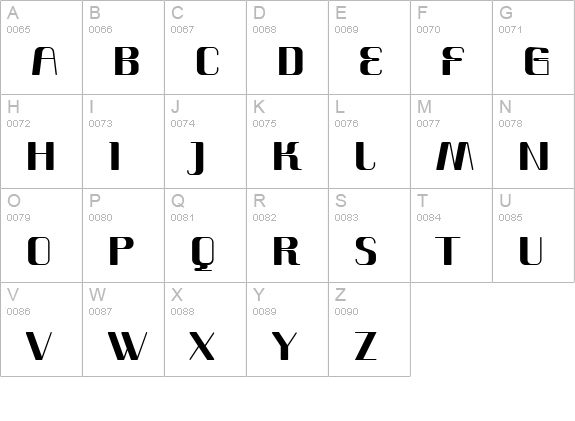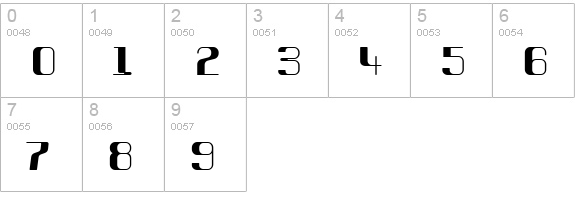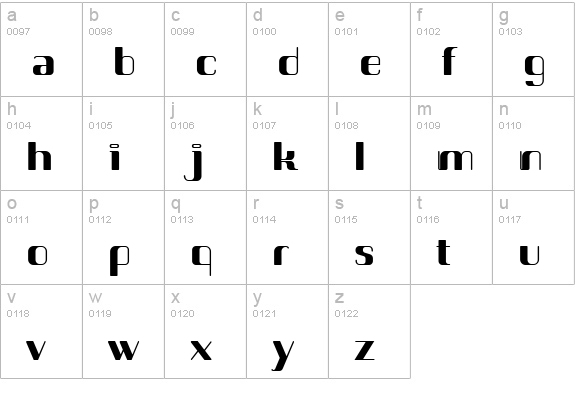
RomeroHeavy Font Details
RomeroHeavy is a bold and impactful display font that commands attention with its strong and confident presence. With its thick and sturdy letterforms, this typeface exudes power and authority while maintaining a touch of elegance. Perfect for headlines, titles, and branding projects, RomeroHeavy is designed to make a statement and leave a lasting impression. The best part? RomeroHeavy is available for free download exclusively at FontsMarket.com. This means you can easily access this versatile font and use it in your designs without any cost. Don't miss out on the opportunity to add RomeroHeavy to your font collection and elevate your projects with its striking and dynamic aesthetic. Download it now and unleash the full potential of this impressive typeface.